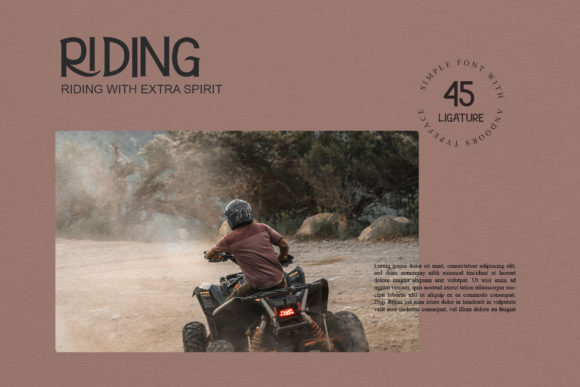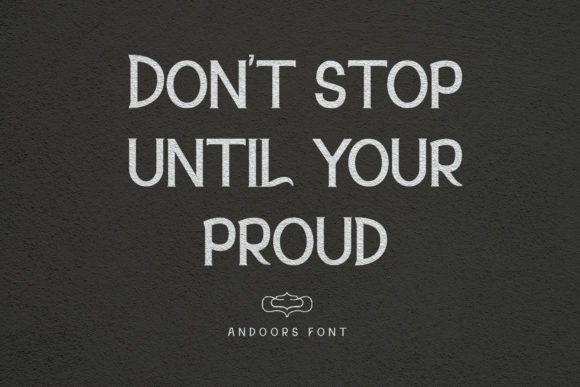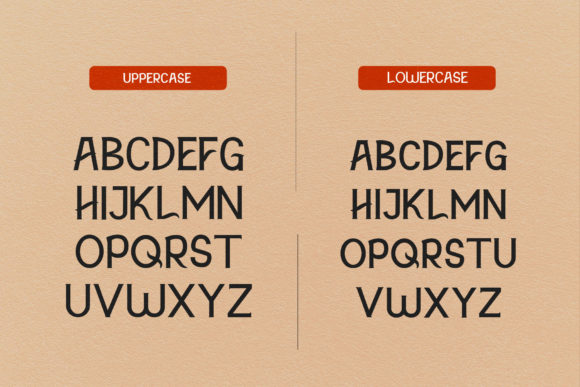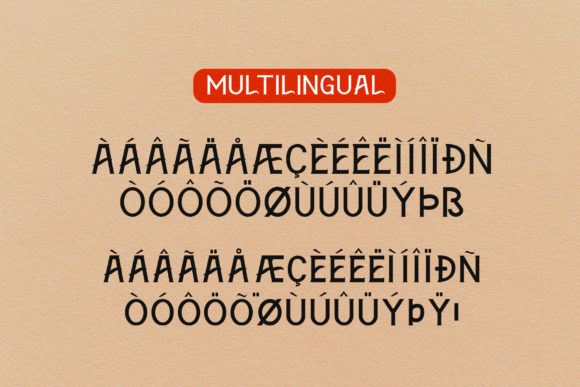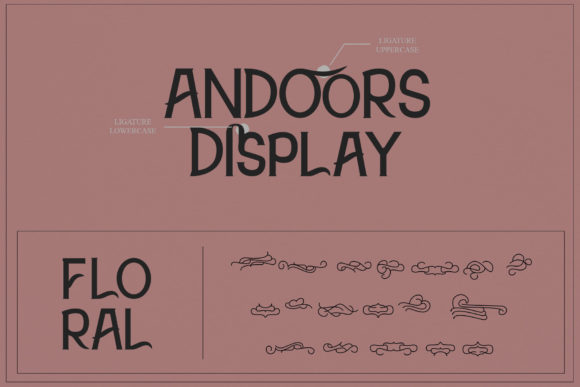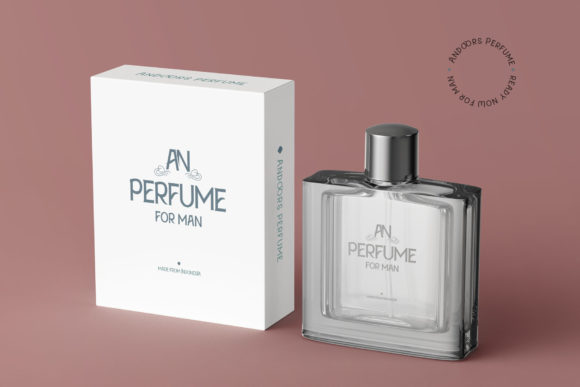
Unleash Your Creativity with Andoors Font
You know that moment when you’re staring at a blank canvas, a blank page, or a blank screen, waiting for inspiration to strike? It’s a familiar feeling for many creatives. But what if I told you that with the right tool, that spark can ignite in an instant?
Enter Andoors Font, a cool, indie-styled, vintage display font designed to add a touch of elegance and sophistication to your designs. This PUA-encoded font is packed with glyphs and swashes, making it easy to access and use. Whether you’re a graphic designer, digital artist, or simply a lover of all things creative, Andoors Font is the perfect addition to your toolkit.
What sets Andoors Font apart is its versatility and ease of use. With its vast range of characters and stylish flourishes, you can confidently add it to your favorite projects and watch as your creations come to life in a whole new way.
Andoors Font Key Features
- Font Family: Andoors is a modern sans-serif font family designed for digital use, available in multiple weights and styles.
- Character Set: The font includes a comprehensive character set, covering Latin, Cyrillic, and Greek alphabets, as well as various symbols and punctuation marks.
- Resolution: Andoors Font is designed for high-resolution displays, making it ideal for use in digital media, such as websites, mobile apps, and video games.
- Size: The font family includes a range of weights, from Light to Black, allowing designers to choose the perfect weight for their project.
- Unique Characteristics: Andoors Font features a distinctive, geometric design with a focus on legibility and clarity, making it an excellent choice for body text and headlines.
Designer Review: Andoors Font
Overall, I think Andoors Font is a solid addition to any designer’s toolkit. The clean lines, minimalist aesthetic, and versatility make it a great choice for a variety of projects. ✨ The font’s geometric structure also lends itself well to use in logos, branding, and digital interfaces.
Here are some specific strengths of the font:
- Legibility: Andoors Font is highly legible, even at smaller font sizes, making it ideal for body text and long-form content.
- Customizability: The font comes with a range of weights and styles, allowing designers to tailor the look and feel to suit their needs.
- Neutrality: Andoors Font has a neutral, timeless quality that makes it suitable for a wide range of industries and applications.
- ✨ Limited expression: While the font is highly versatile, it may lack the emotional punch or personality that some designers crave.
- ⚠️ Limited support for certain languages: As with many sans-serif fonts, Andoors Font may not be optimized for languages that require more complex typography.
Overall, I think Andoors Font is a reliable choice for designers who value simplicity and versatility. While it may not be the most exciting or expressive font on the market, it gets the job done with style and sophistication.
Andoors Font: A Practical Application Guide
Getting the Most Out of Andoors Font
Here are some tips for getting the most out of the Andoors font:
- Use the font in combination with other elegant fonts for a sophisticated look.
- Use the font in headings and subheadings to create a clear hierarchy of information.
The Andoors font is commonly used in:
- Wed